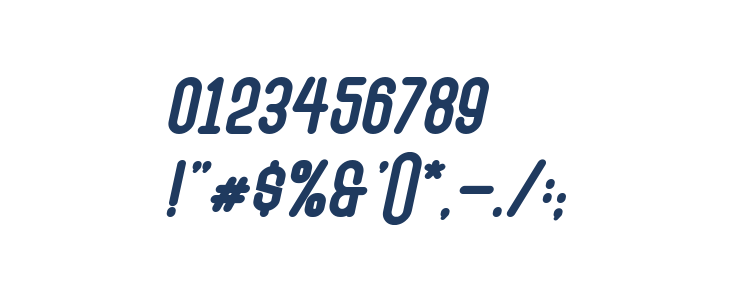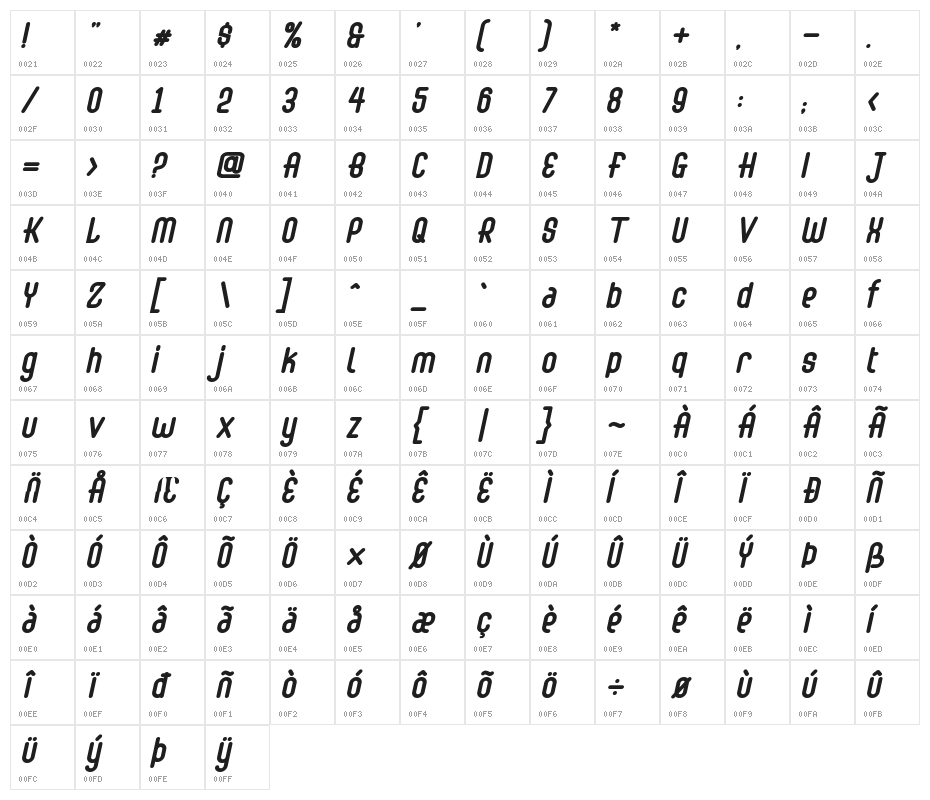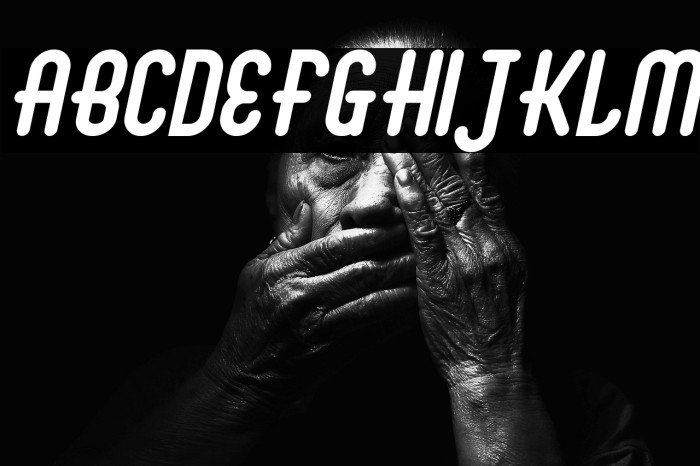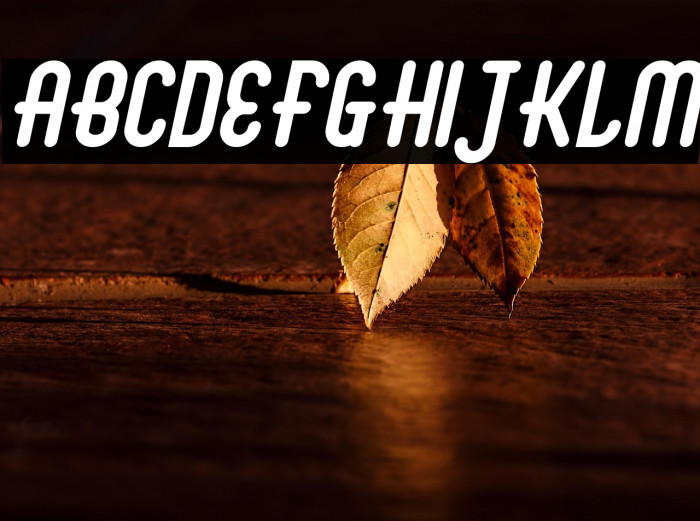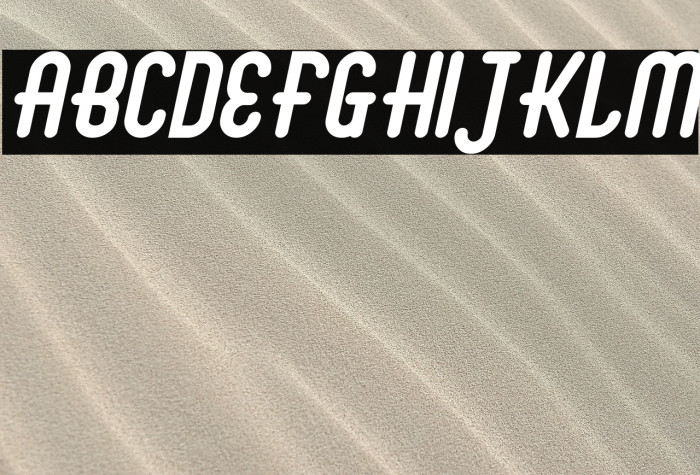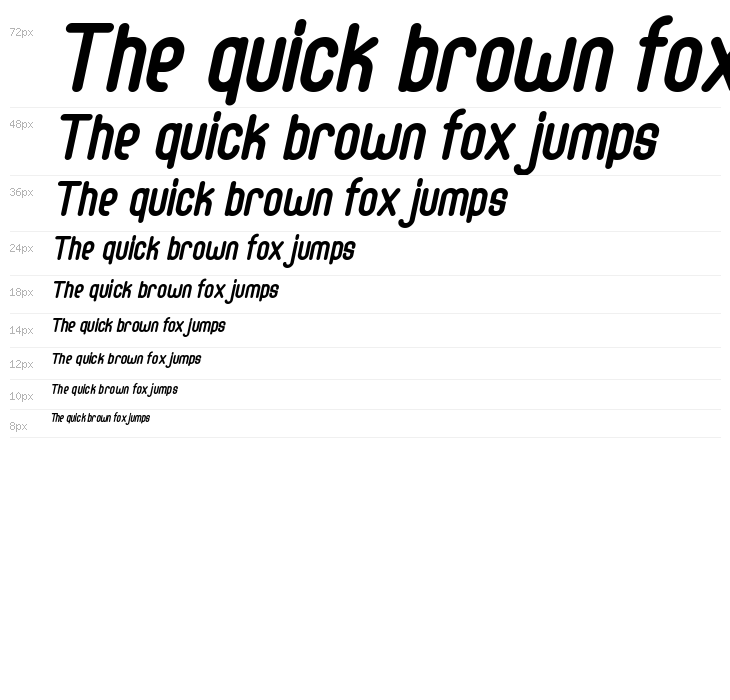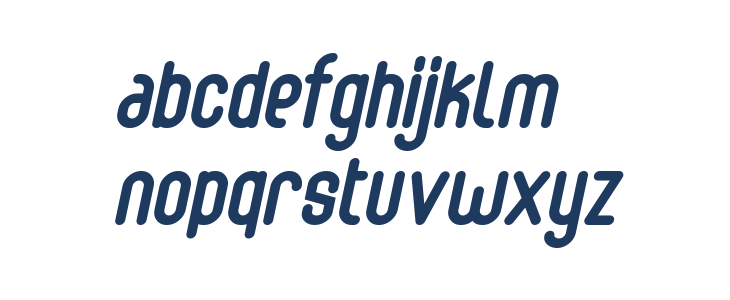
Abingdon Bold Italic Font
Abingdon Bold Italic Description
This font features a bold and italicized style, characterized by its rounded and smooth letterforms. The strokes are consistent in thickness, providing a uniform appearance that enhances readability. The letters have a slight slant, adding a dynamic and energetic feel to the text. The font maintains a modern aesthetic with its clean lines and lack of serifs, making it suitable for contemporary design projects. The numerals and special characters are designed to match the overall style, ensuring cohesion across different types of content.